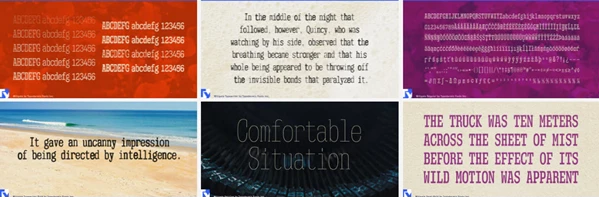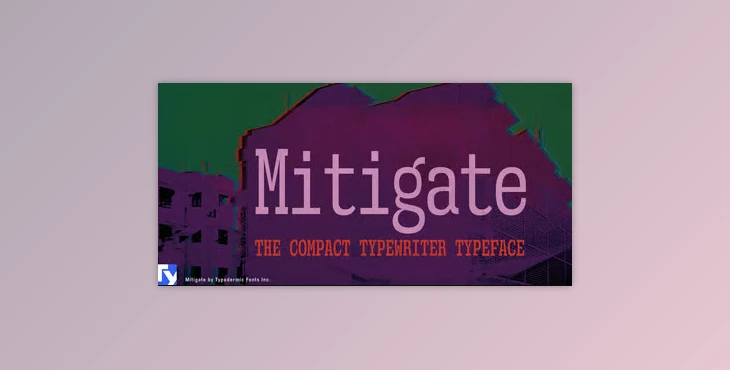
The Miligate Font Family is an essentially newspaper font family, condensed. This font family is inspired by the character of the mechanical typewriter, hammers hitting the paper, and a touch of ink smear, transformed into a more modern appeal that allows any contemporary design project to benefit from it. This family is perfect for anything that needs to conserve space without losing integrity, from narrow headlines to infographics and box labels, where millimeters are crucial. Along with the regular clean version, there are two more of the worn variety, which give a storytelling aspect to the typeface: a faded version like an aged typewriter, and an inky style as if it were typed over and over again.
Due to its versatility, this style can be used for everything from grand endeavors to small errands. The worn versions would be appropriate for front-page stories or covers of old-fashioned pulp novels or titling for documentaries that rely on grittiness. The regular clean version would be suitable for business communications and wayfinding. All styles are well letter-spaced, possess an international character set, and tend to run a little on the small side, which works in favor of even the most chaotic presentations. Miligate allows designers to have control over chaos based on the strongest of foundations.